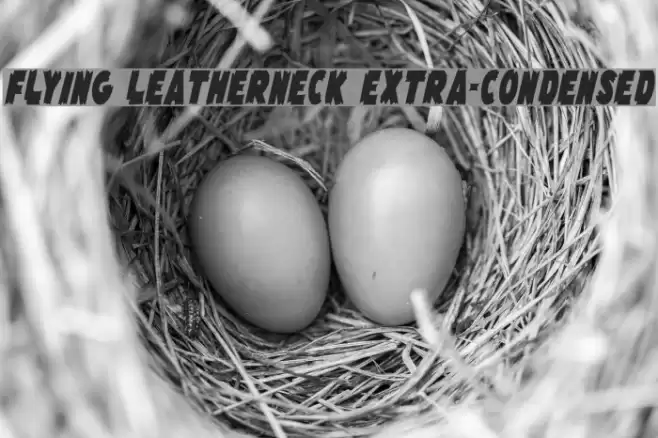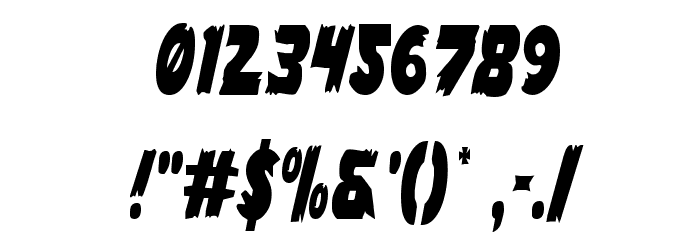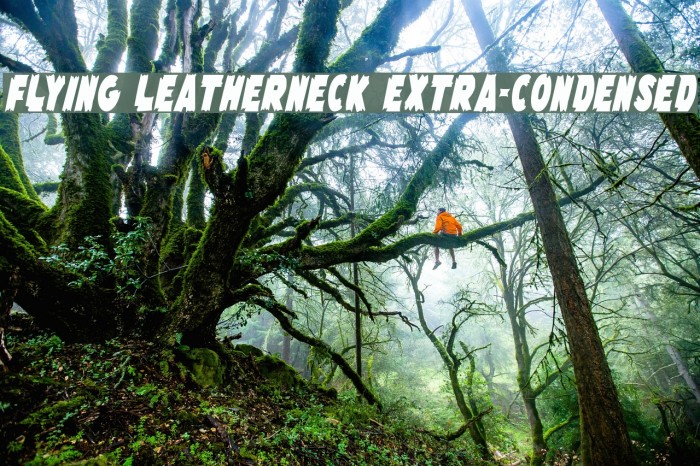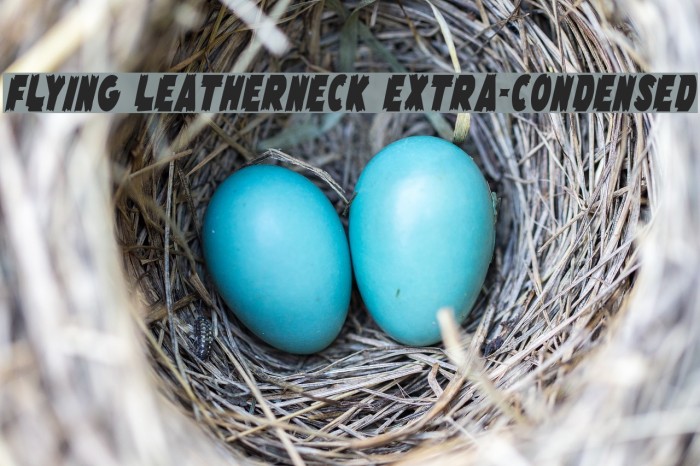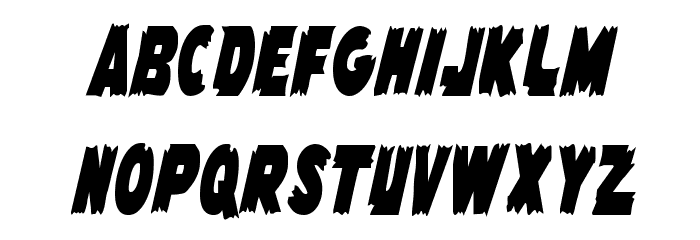
Flying Leatherneck Extra-condensed Font
Flying Leatherneck Extra-condensed Description
This font features a bold, dynamic style with a jagged, distressed appearance that gives it a sense of movement and energy. The characters are extra-condensed, making them ideal for creating impactful headlines or titles. The uppercase and lowercase letters maintain a consistent design, with sharp edges and a slightly irregular form that adds to the font's unique character. The numbers and special characters follow the same aesthetic, ensuring a cohesive look across all text elements. This font is perfect for projects that require a bold statement or a touch of ruggedness.
A bold, jagged, extra-condensed font with a dynamic and distressed style from Uncategorized fonts.
- Proposed Projects: Ideal for movie posters, action-themed graphics, sports branding, or any project needing a bold, energetic typeface.
- Character Spacing: Tight
- Overall Style: Dynamic, Rugged